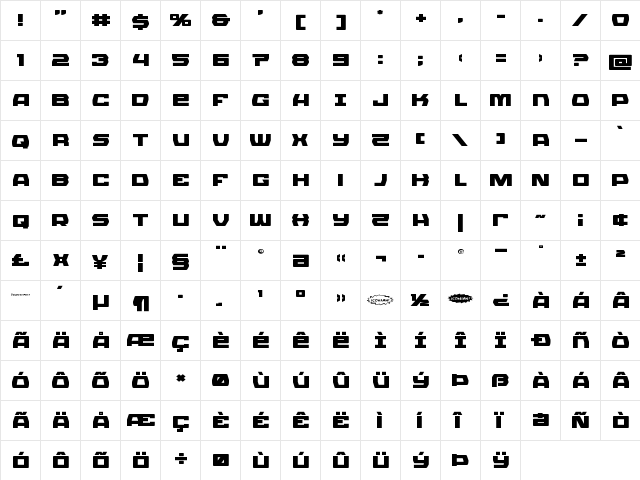
Olympic Carrier Expanded Expanded
Design Context for Olympic Carrier Expanded Typeface
Olympic Carrier Expanded takes a measured approach to typography — its balanced proportions and neutral character make it a reliable workhorse for both digital and print work.